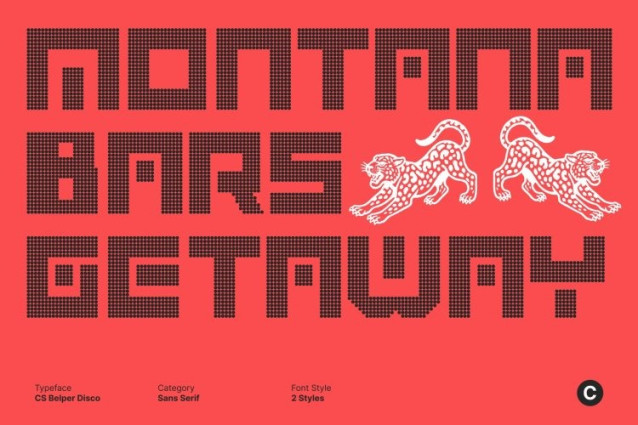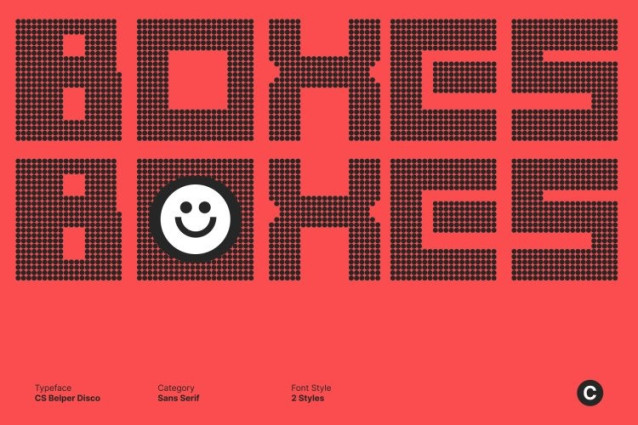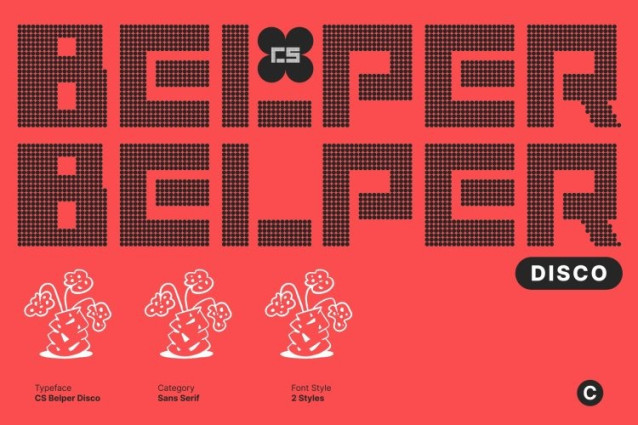
CS Belper Disco Font
CS Belper Disco Font This is a bold futuristic display font that radiates modern intensity infused with a retro disco spirit. Built on a strong techno foundation, it features sharp forms, assertive structures, and experimental details inspired by the electronic optimism of the late 70s and early 80s. The result is a font that feels both forward-thinking and nostalgically energetic.
Bold Forms with Industrial Strength and Disco Attitude
Its solid letterforms draw inspiration from industrial and brutalist design, enhanced with a lively disco edge. Thick strokes, rigid geometry, and confident shapes create a commanding presence, while rhythmic proportions echo the pulse of neon lights and electronic beats. This fusion makes the font feel mechanical yet expressive, powerful yet playful.
Experimental Shapes with Retro-Futuristic Expression
This font pushes beyond conventional typography through its experimental construction. Unconventional proportions and dynamic forms reflect the retro-futuristic imagination of the disco era where technology, music, and nightlife collided. This expressive approach makes the font feel progressive, bold, and visually striking.
Perfect for High-Energy Branding and Visual Statements
Designed for maximum impact, this font excels in branding, logos, posters, album covers, event visuals, and promotional designs. Its techno-disco aesthetic makes it ideal for music events, fashion campaigns, nightlife branding, creative studios, and experimental projects that want to channel futuristic power with a vibrant, dance-floor soul.